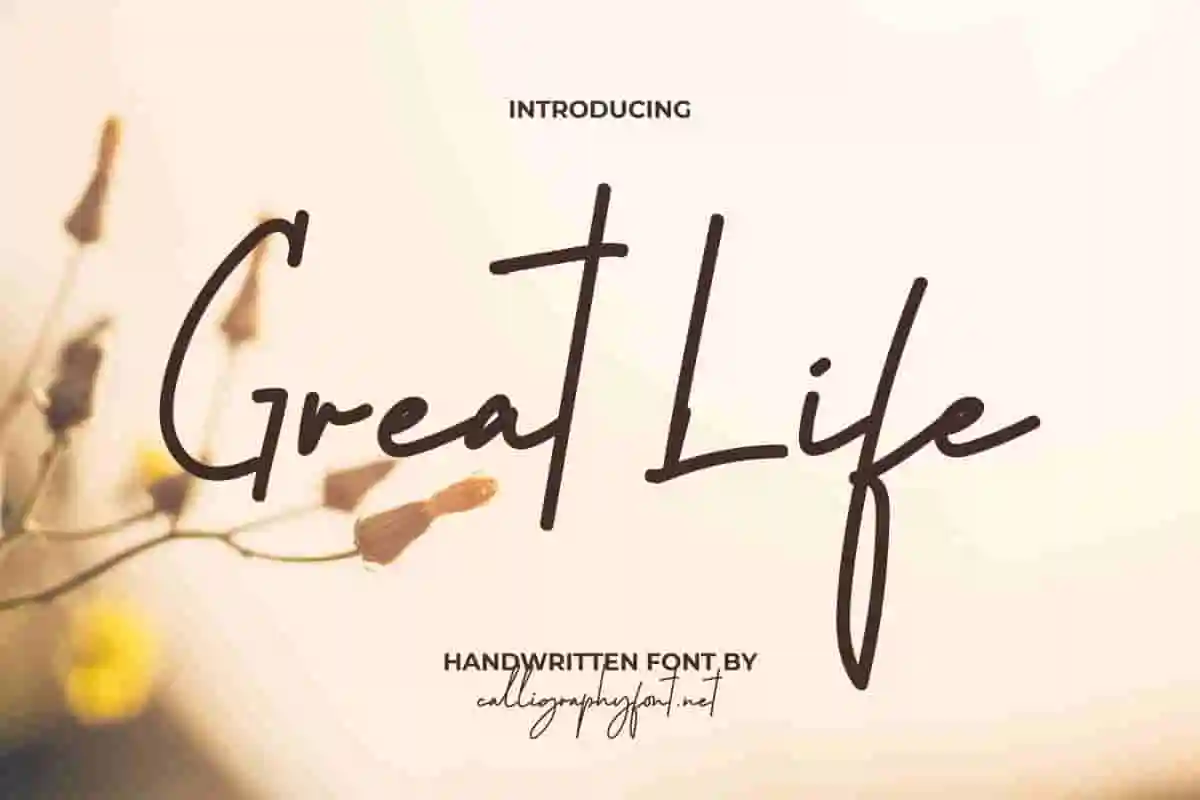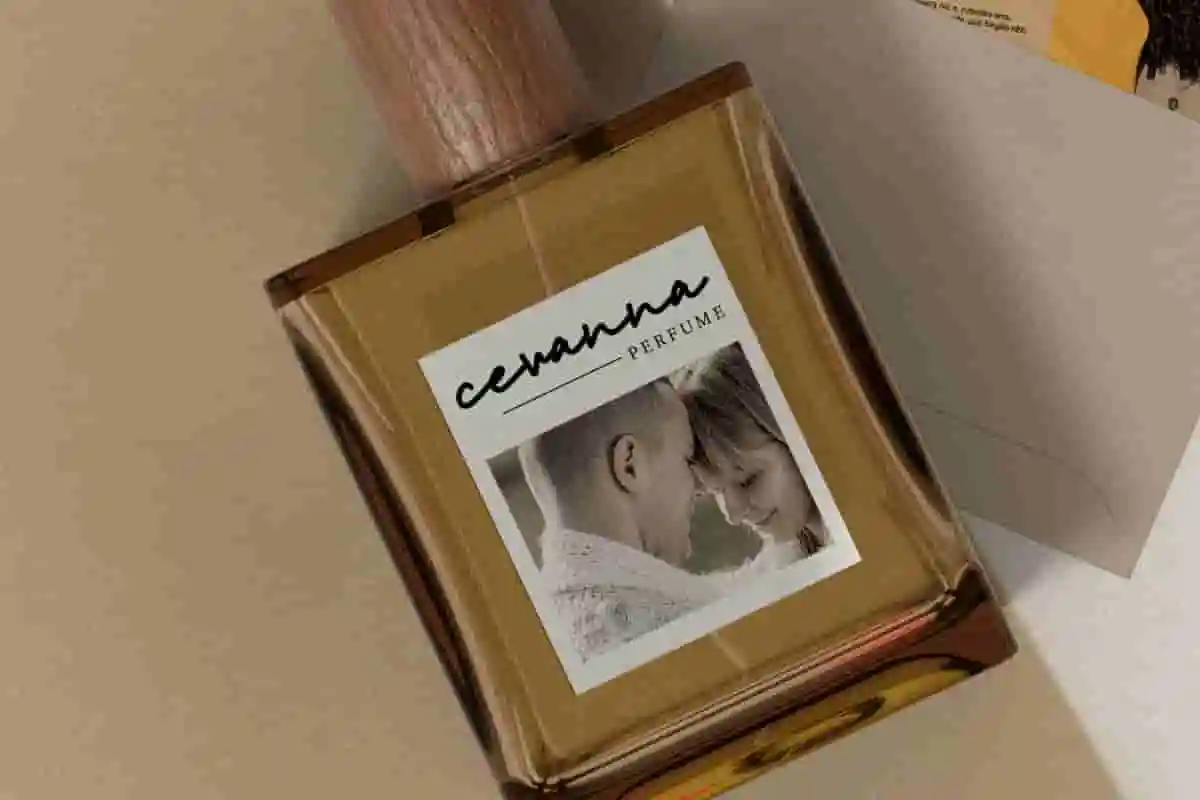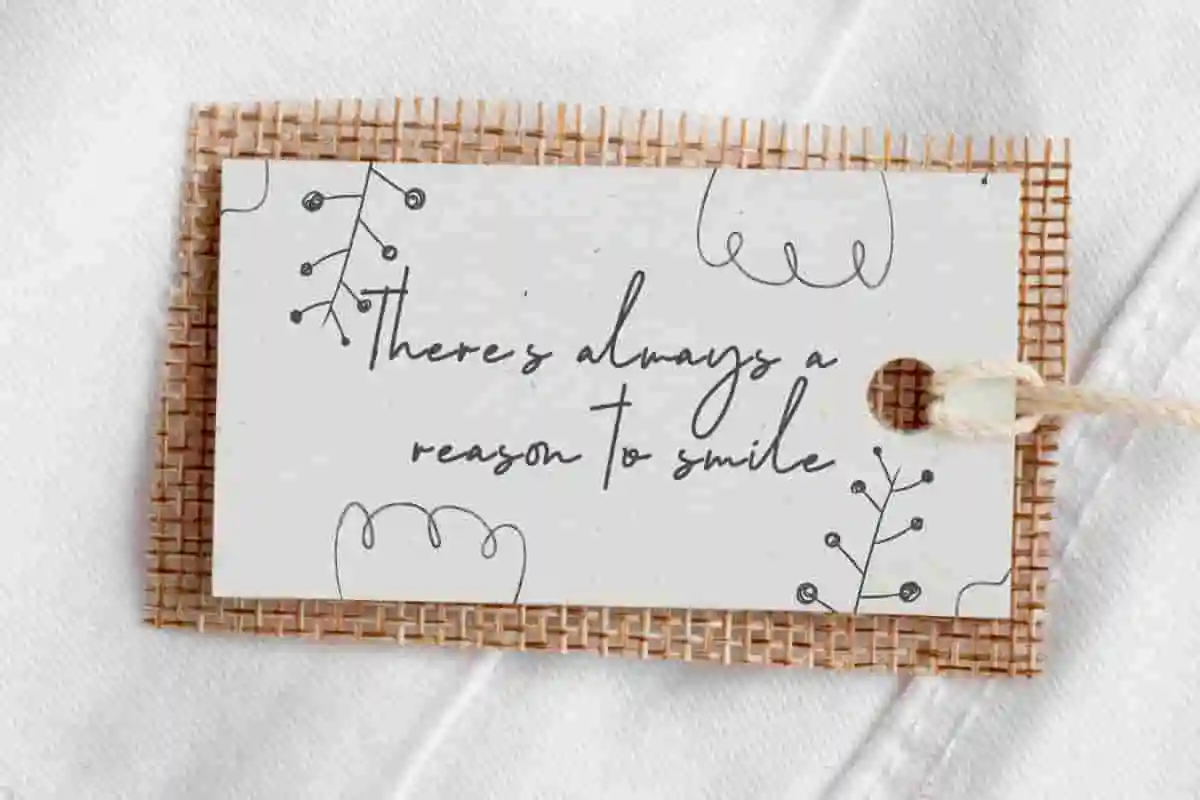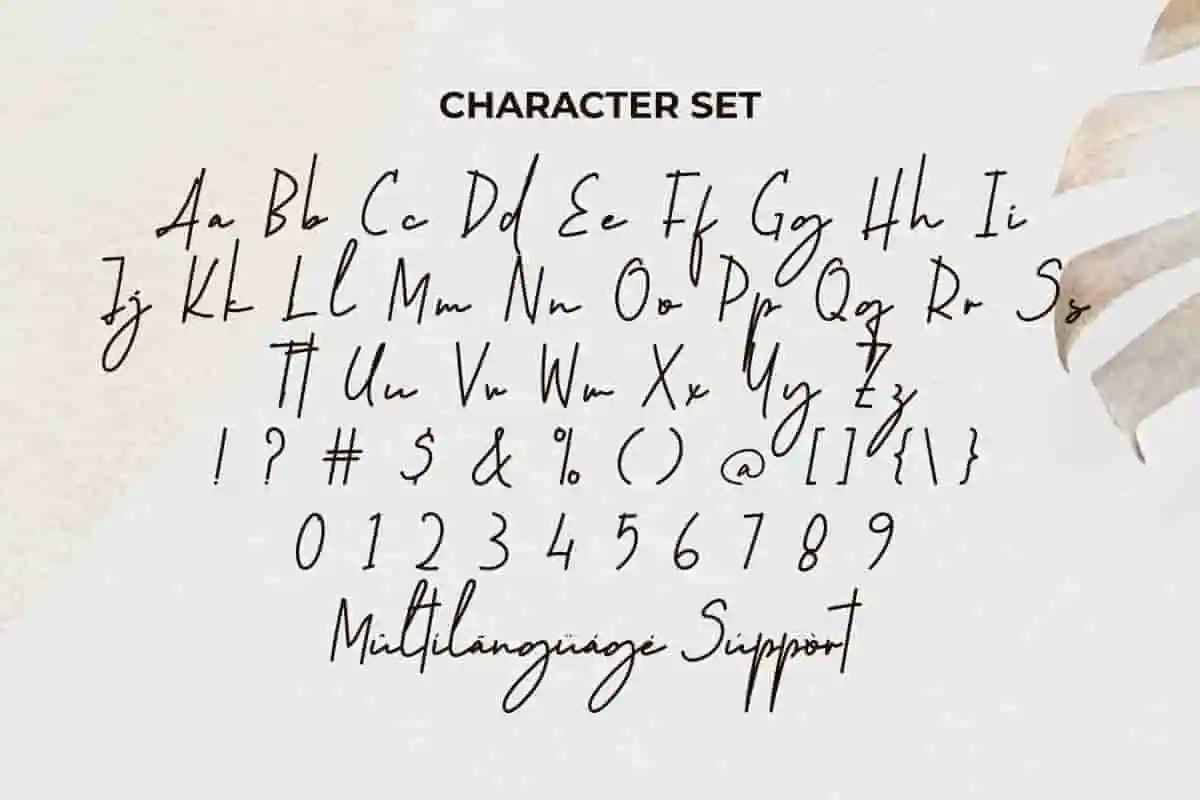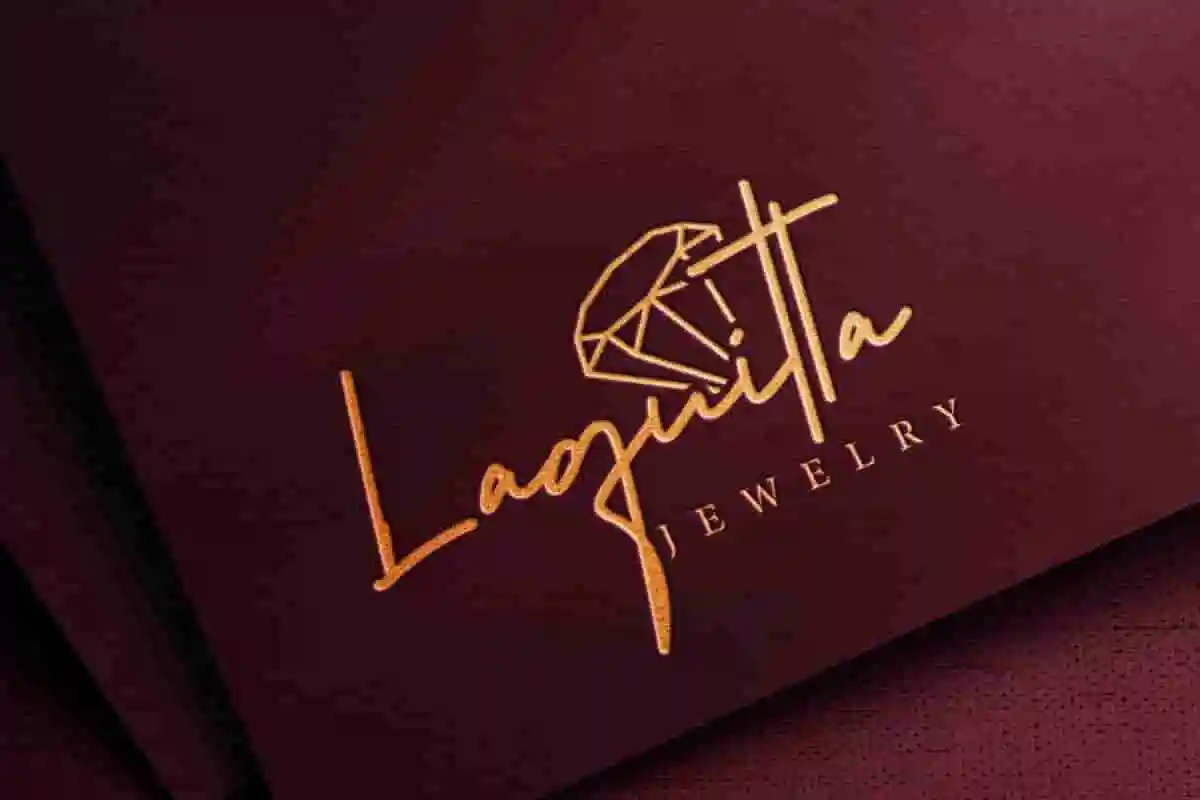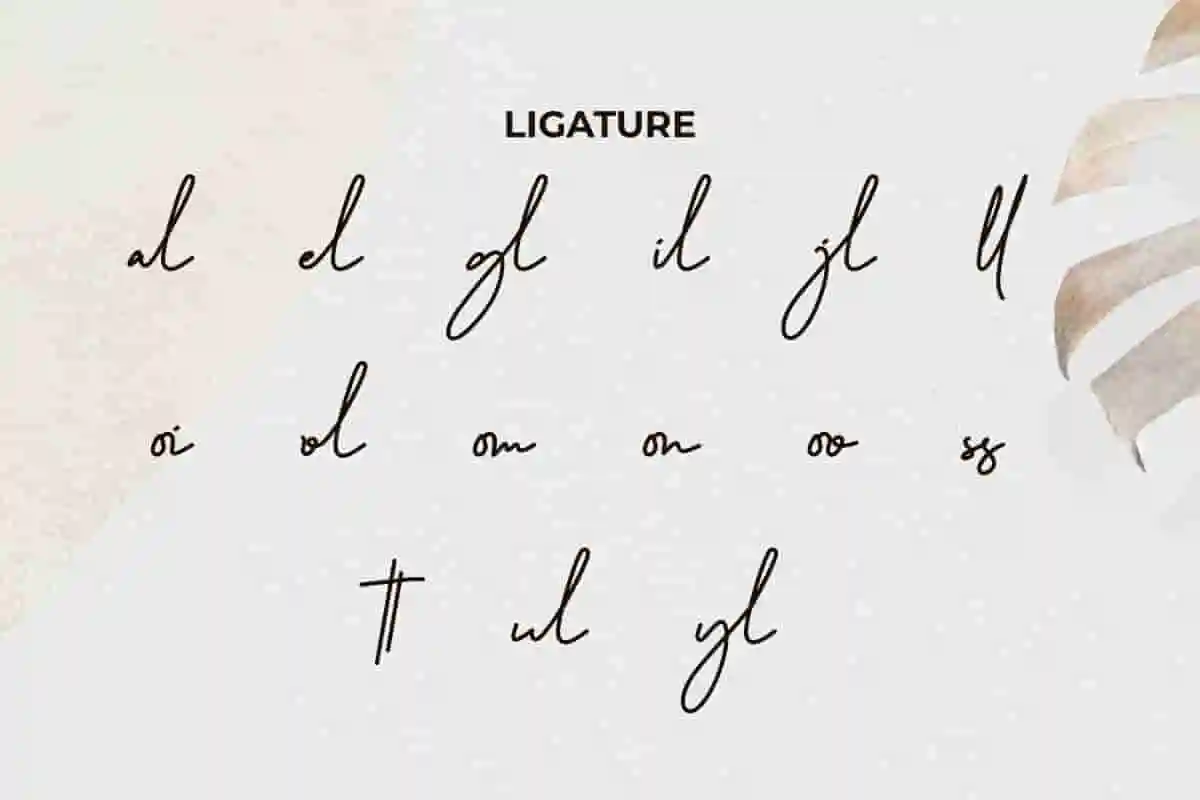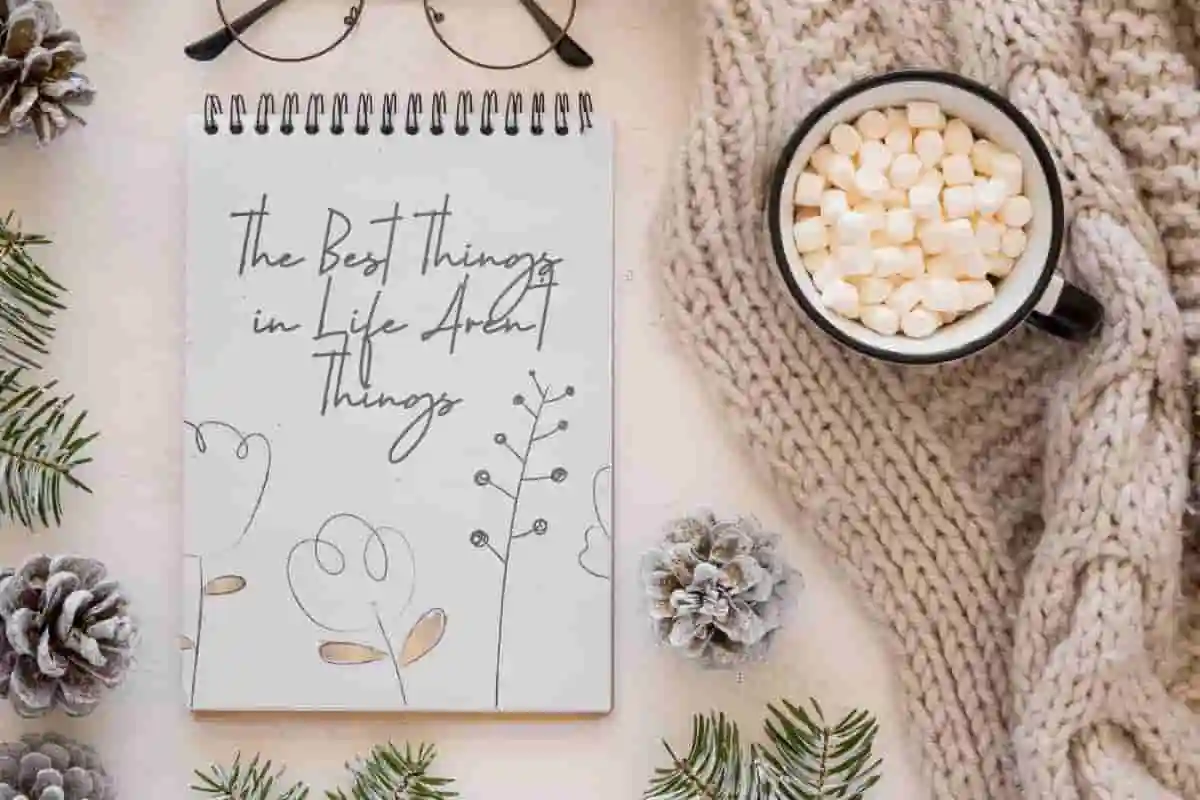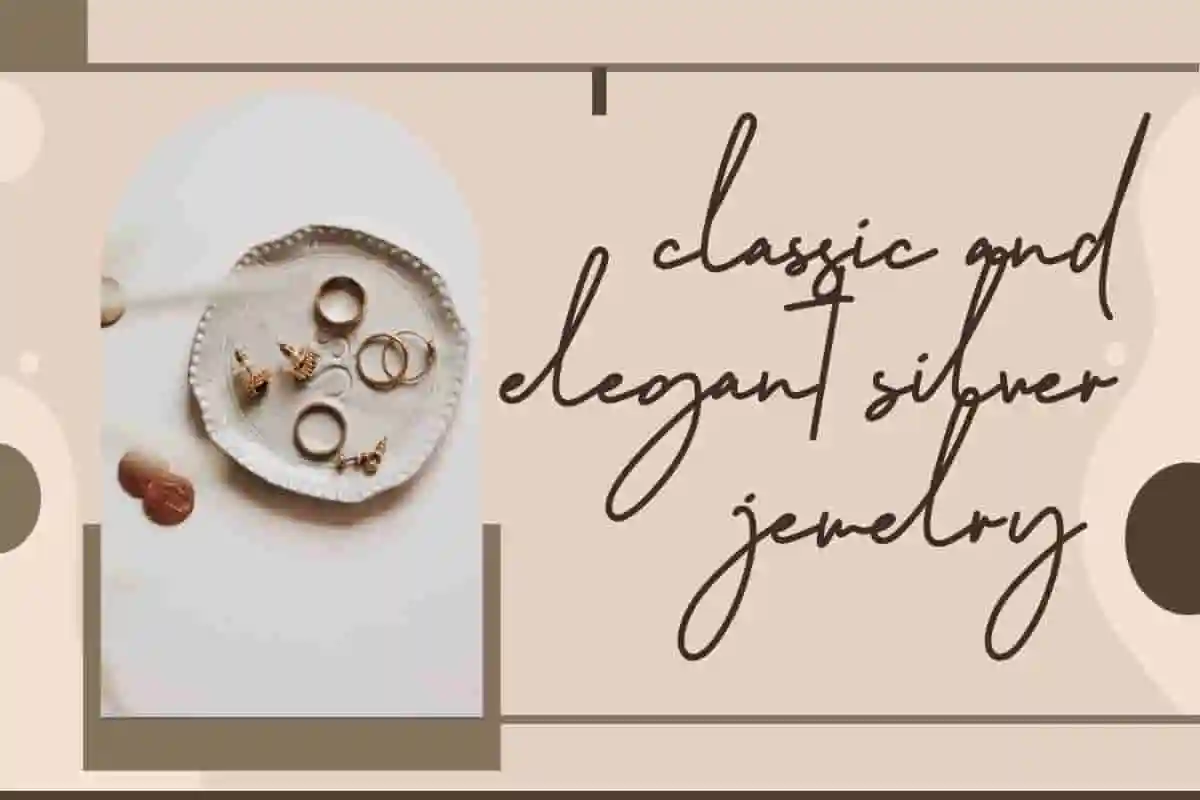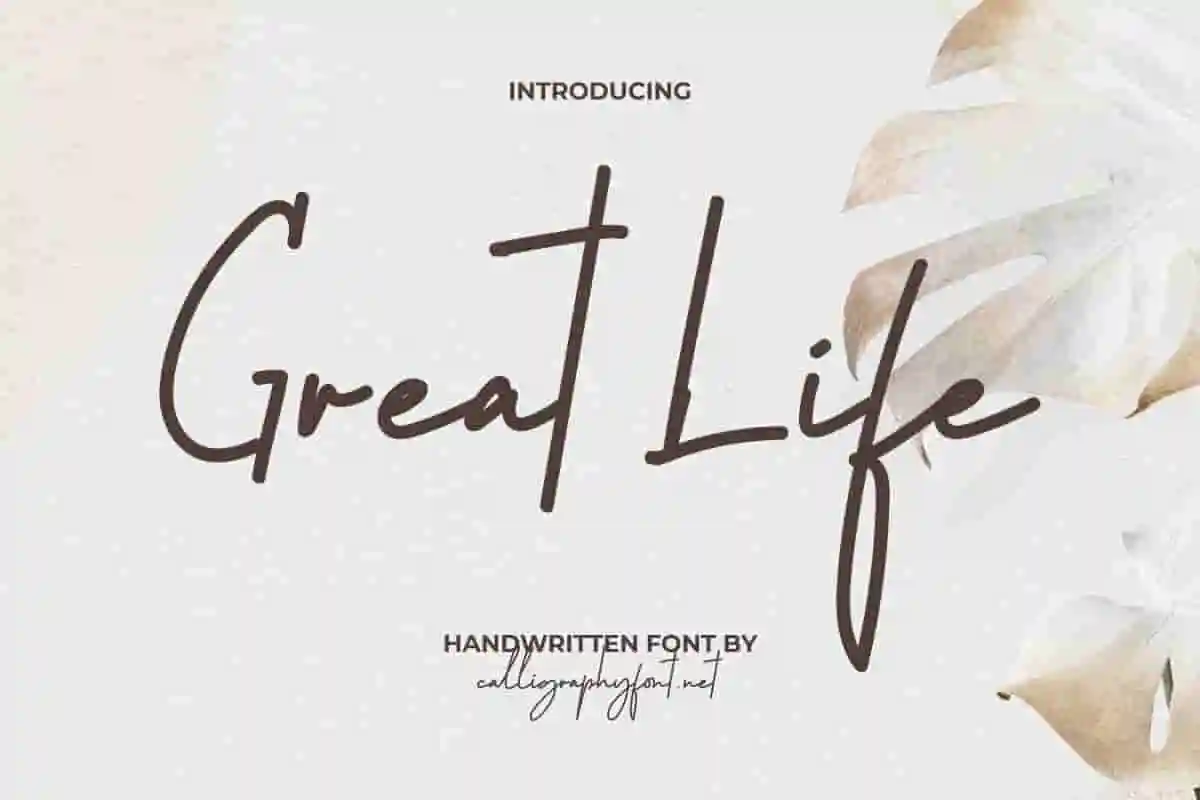
Great Life Signature Font
Great Life Font is a simple yet beautiful one line handwriting signature font in a calm and warm concept. It will express your creativity in different ways. This typeface is perfect for fancy logos, fashion brands, magazines, quotes, etc.
Great Life Font is a simple yet beautiful one line handwriting signature font in a calm and warm concept. It will create a chic look in any setting and is perfect for enhancing your creative designs, such as advertisements, branding logo, brochure, business cards, cover design, flyer, greeting cards, header, headline, label, packaging designs, poster, quotes, restaurant menu, screen print, stationery, title, watermarks, website, wedding invitation, and more!
Elevate your designs with Great Life Signature Font, a sophisticated and stylish signature typeface that brings a natural handwritten charm to your projects. Perfect for branding, logos, invitations, and personal stationery, this font embodies elegance and authenticity. Inspired by graceful pen strokes and flowing script, Great Life adds a luxurious, personal touch that makes your text stand out with effortless beauty.
Introducing Great Life Signature Font, a beautifully crafted handwritten script designed to bring sophistication and a personal touch to your creative projects. This elegant signature font is perfect for branding, wedding invitations, logos, social media, and any design that needs a graceful yet modern look. With its smooth, flowing lines and natural handwritten feel, Great Life makes every word look effortlessly stylish.
Discover the elegance of handwriting with Great Life Signature Font, a beautifully crafted script font that adds a personal, sophisticated touch to any design. Perfect for logos, branding, wedding invitations, and personal stationery, this font turns every word into a graceful statement. Great Life’s smooth, flowing strokes mimic authentic handwriting, giving your projects a timeless, refined look.
- Elegant Handwritten Style
- Complete Character Set
Great Life Font provides neat modern handwritten ligatures of lowercase letters to improve font performance. A simple concept but still elegant end result is an important artistic value to support whatever business you are in, such as bakery, coffee shop, event organizer, fashion, graphic design, hotel, jewelry, luxury watch, movie, restaurant, perfume, photography, printing, publishing, spa salon, work of art, many others.